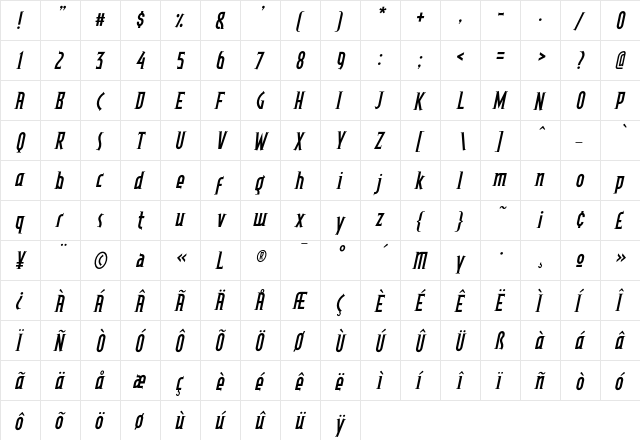
Konfactur Two
Design Context for Konfactur Typeface
Konfactur takes a measured approach to typography — its balanced proportions and neutral character make it a reliable workhorse for both digital and print work.